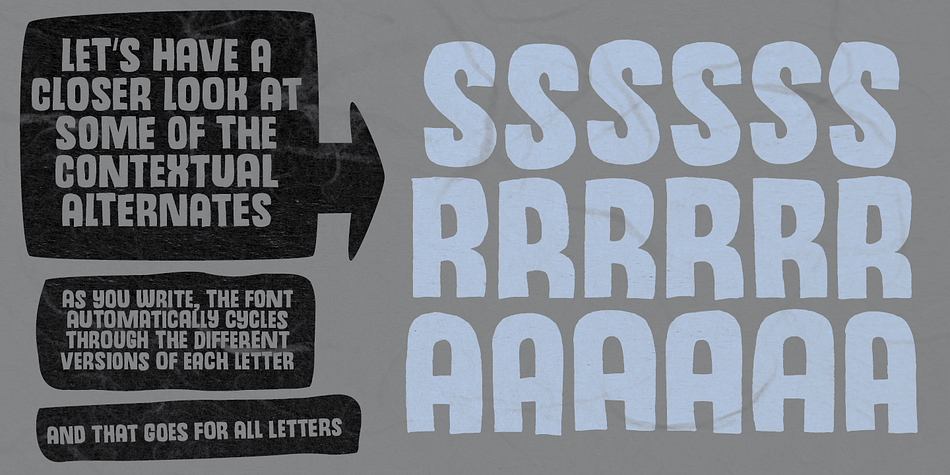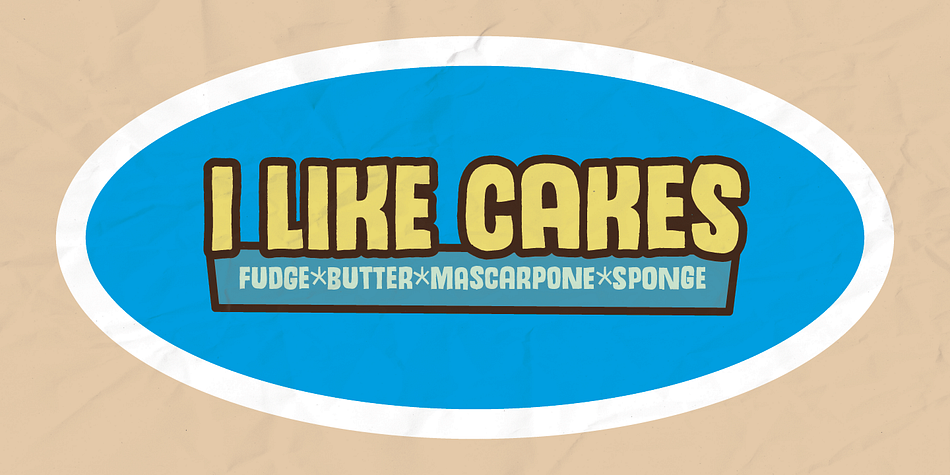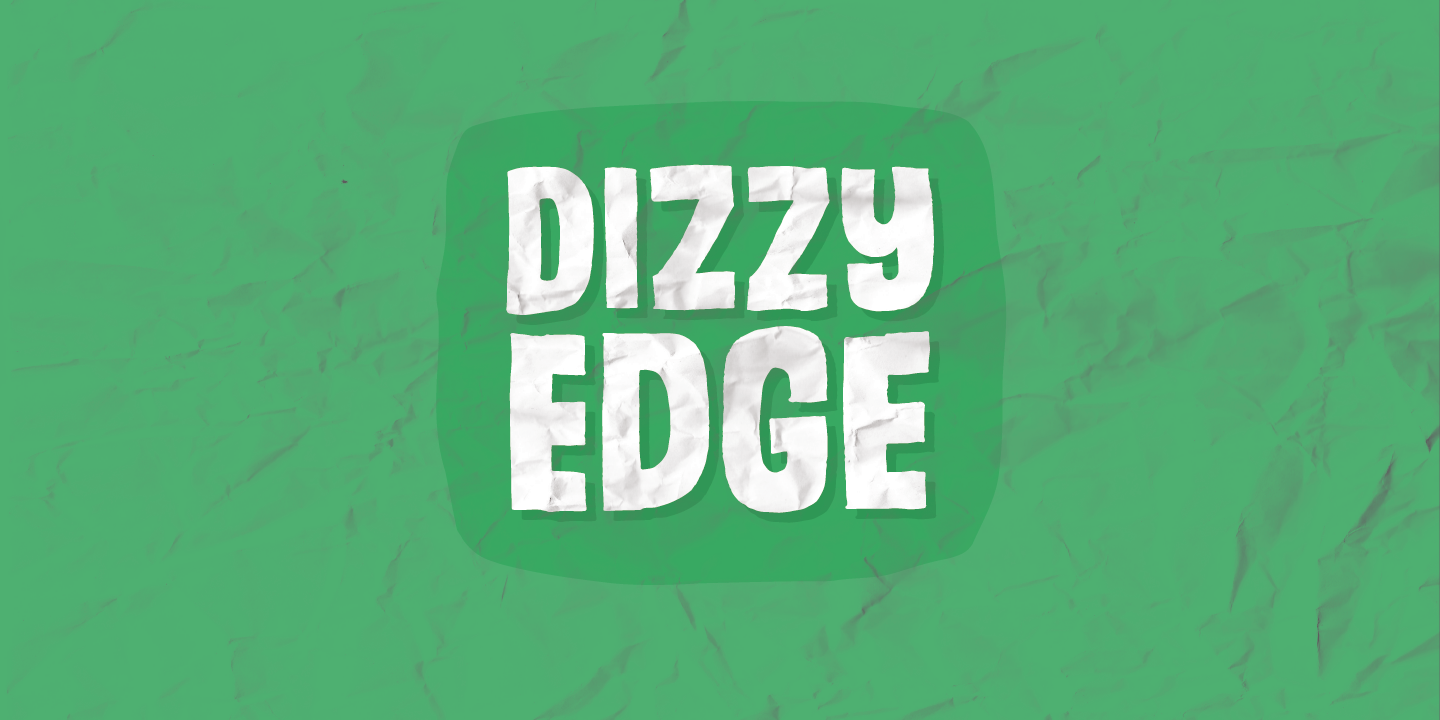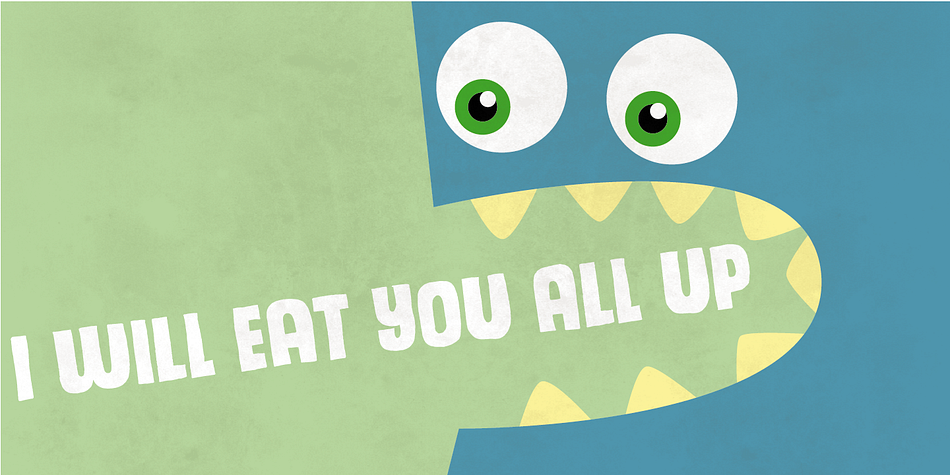
My Dizzy Edge font is really not that dizzy! Actually it’s quite steady and legible - super good for packaging, greeting cards and perhaps even commercials for toys, candy, t-shirts, movieposters…yep, that list is long!
What’s more interesting is that the font as got 6 different versions of each letter - at first glance, the letters don’t vary that much, but a closer look reveals the sometimes grungy outline of a pen.